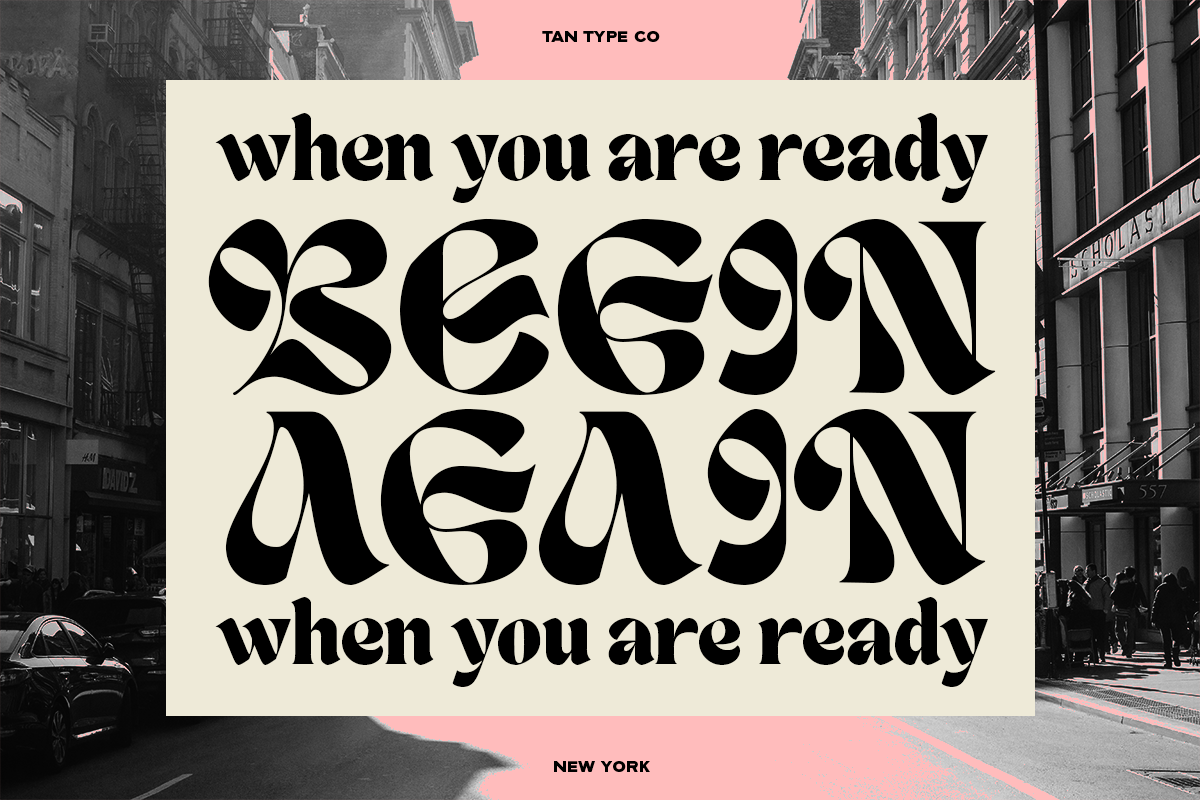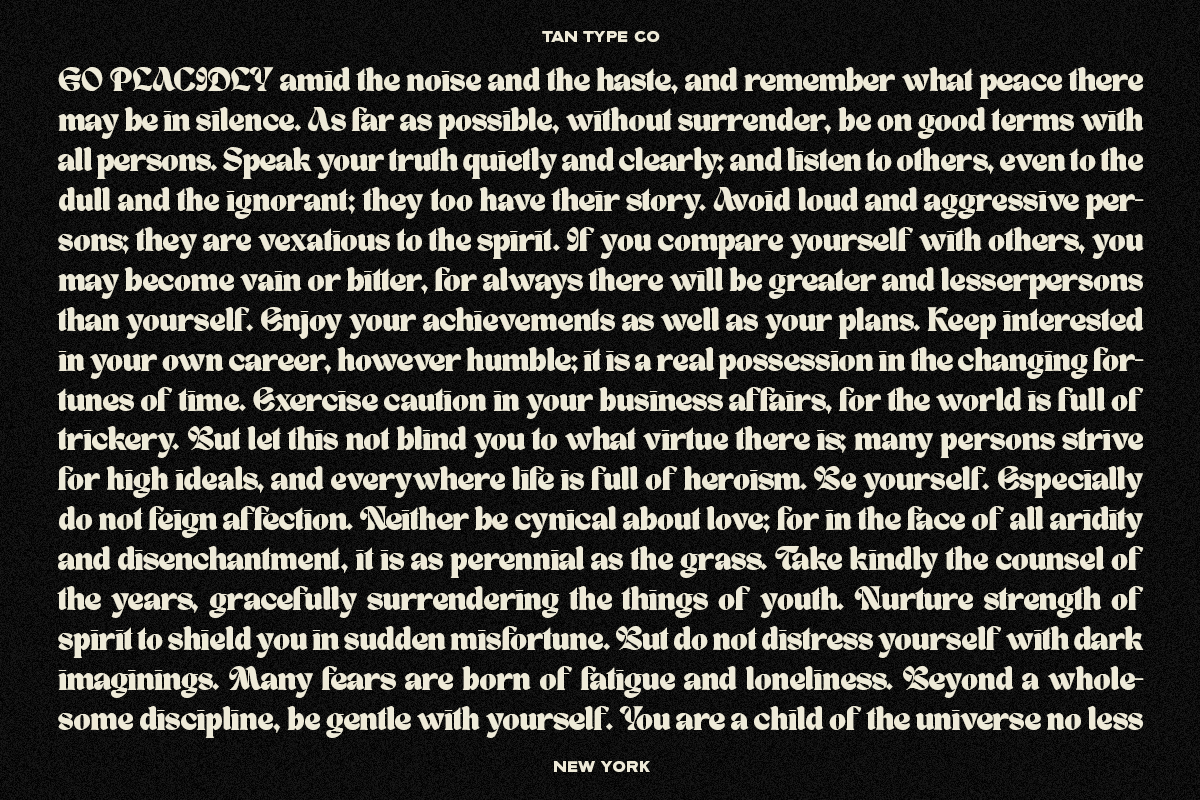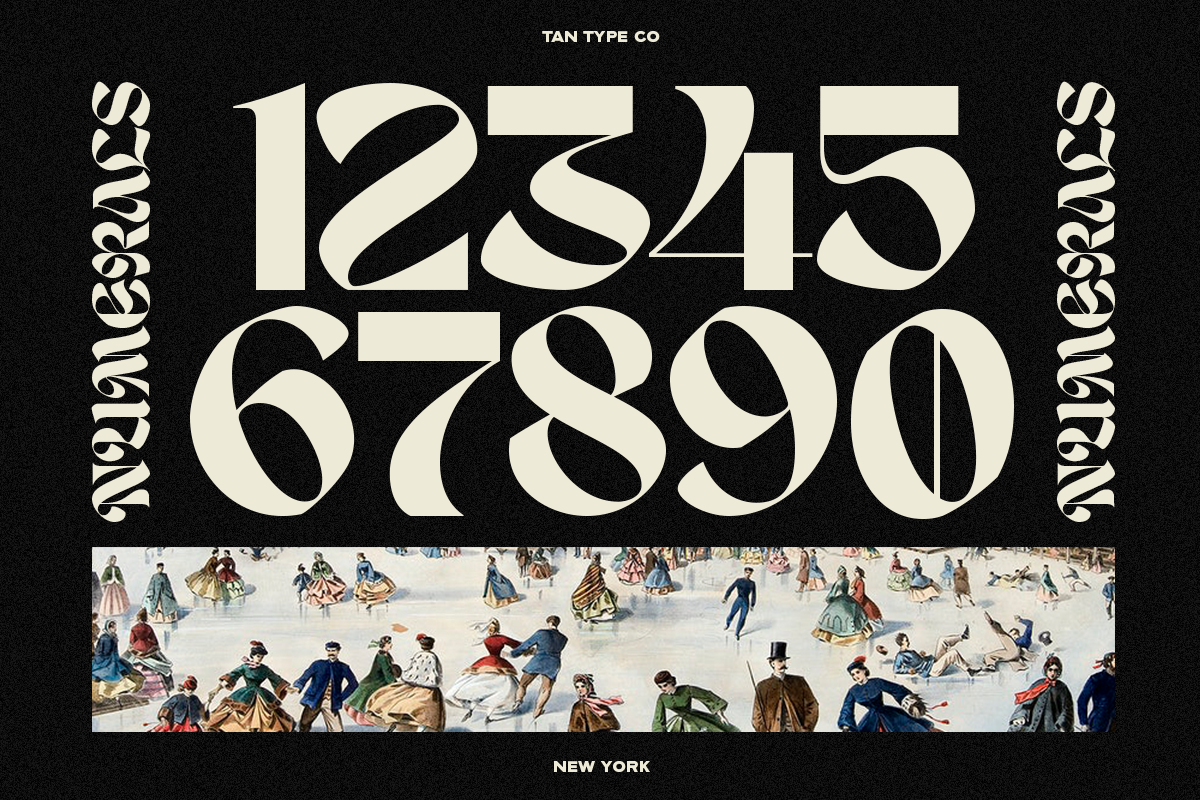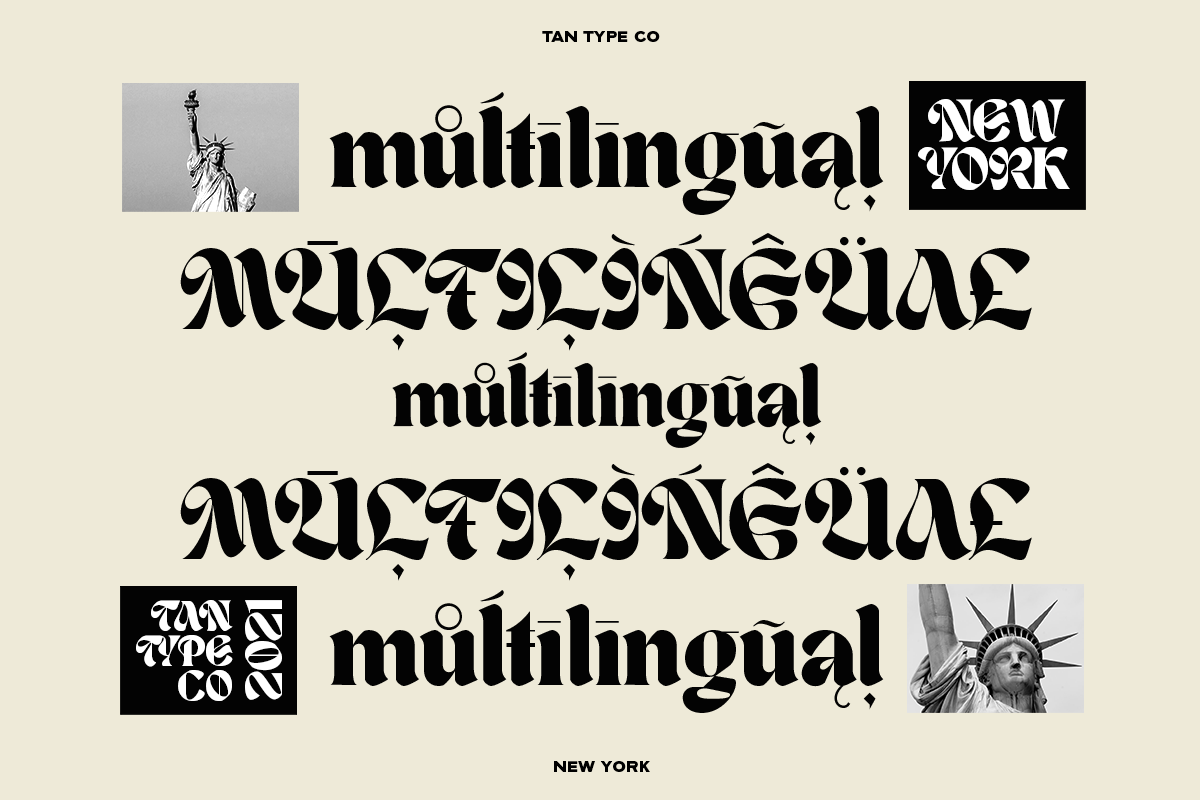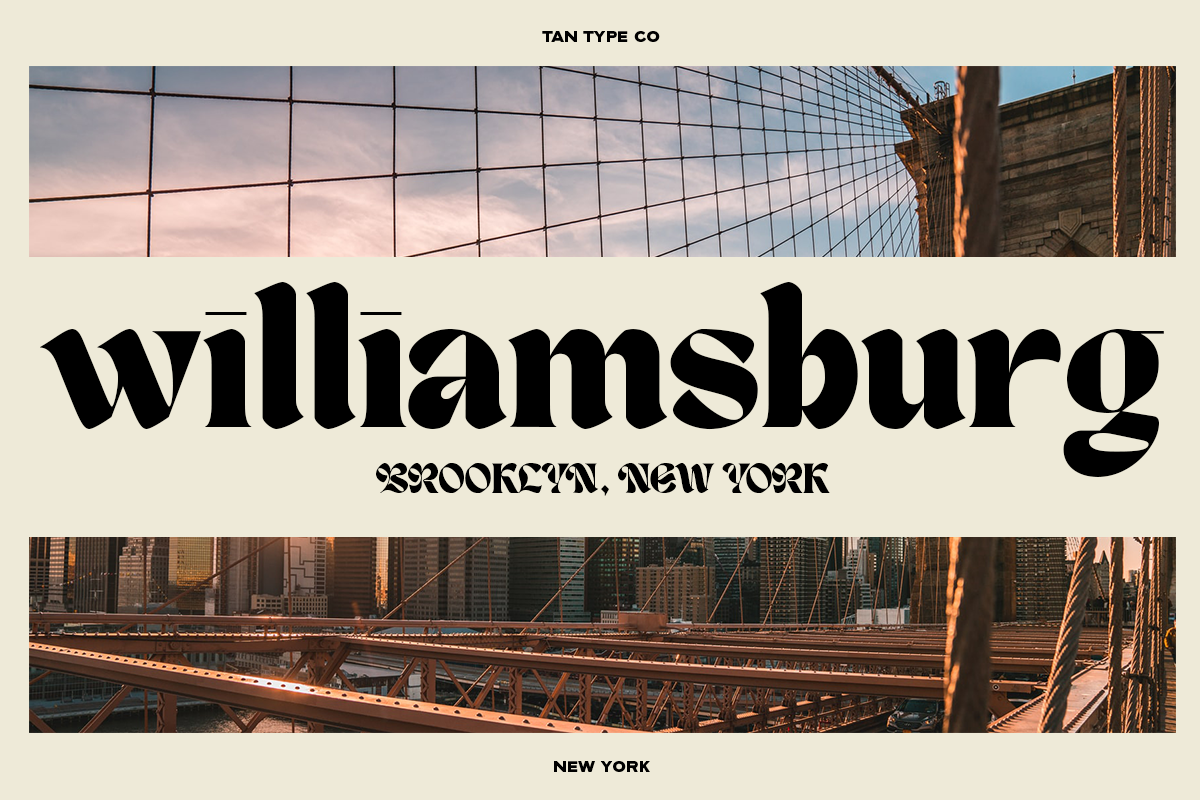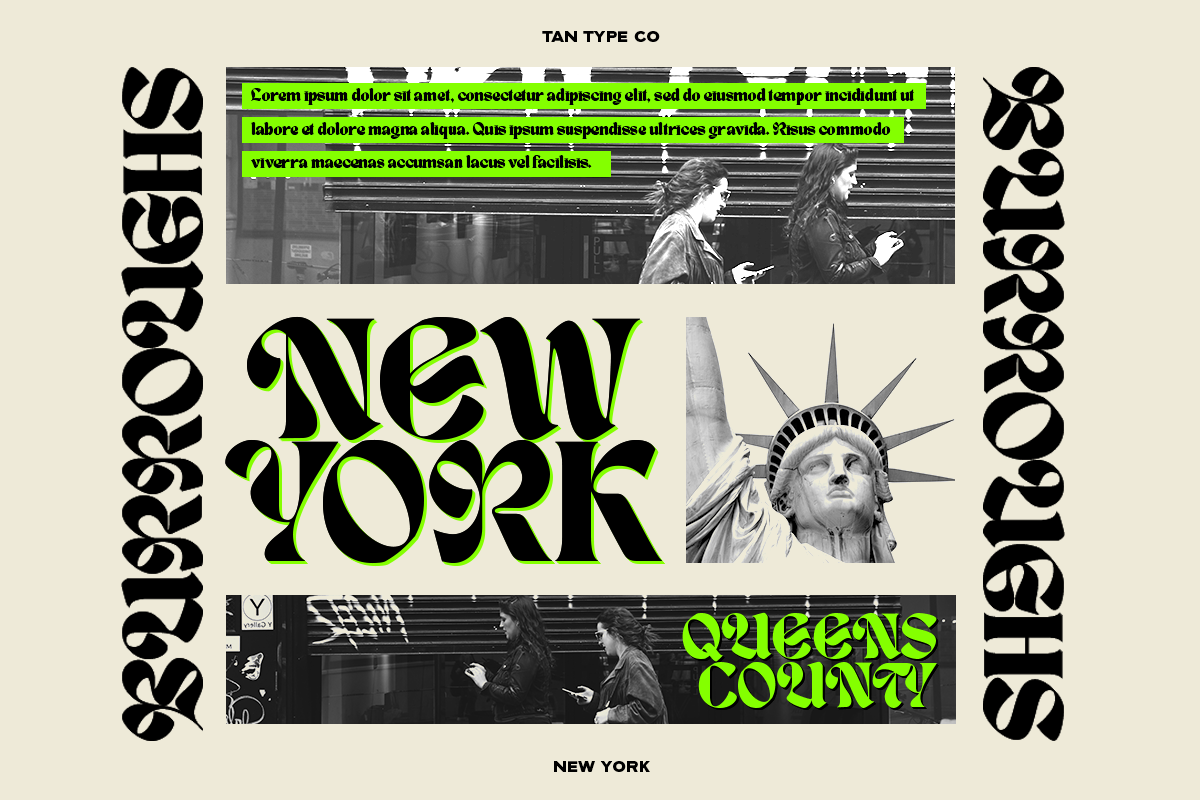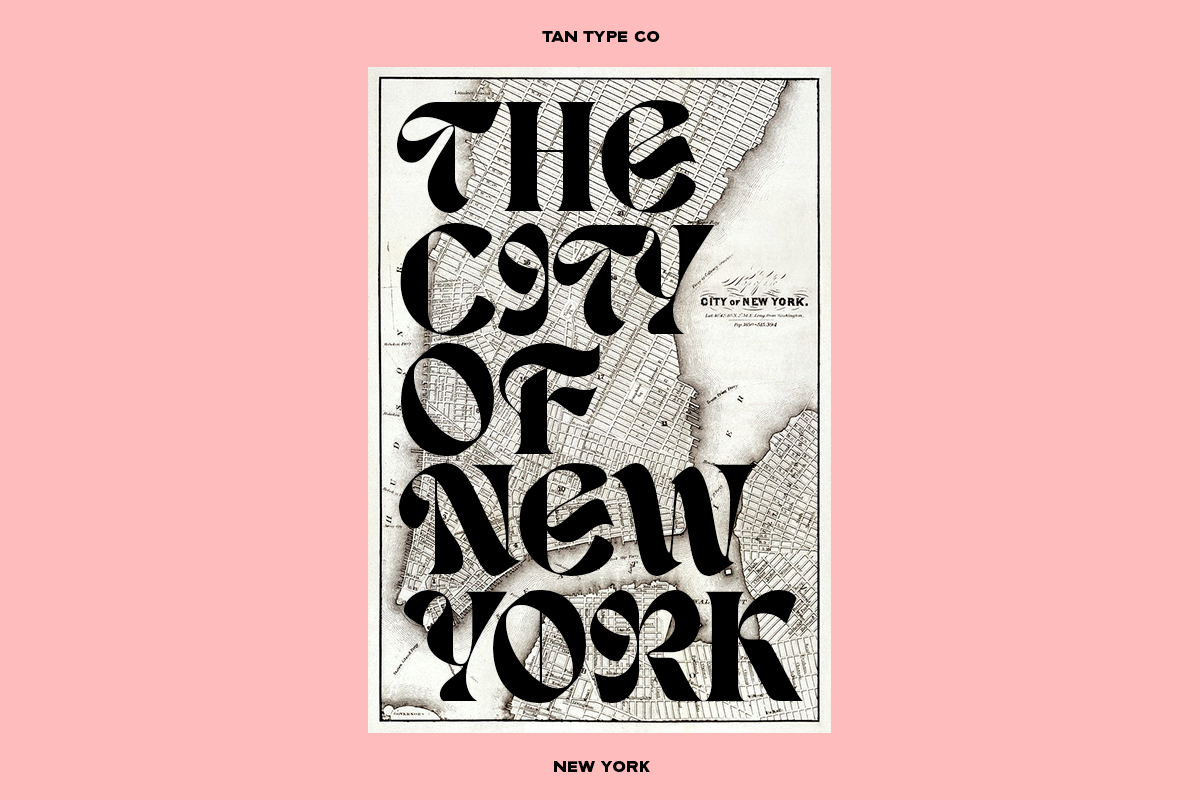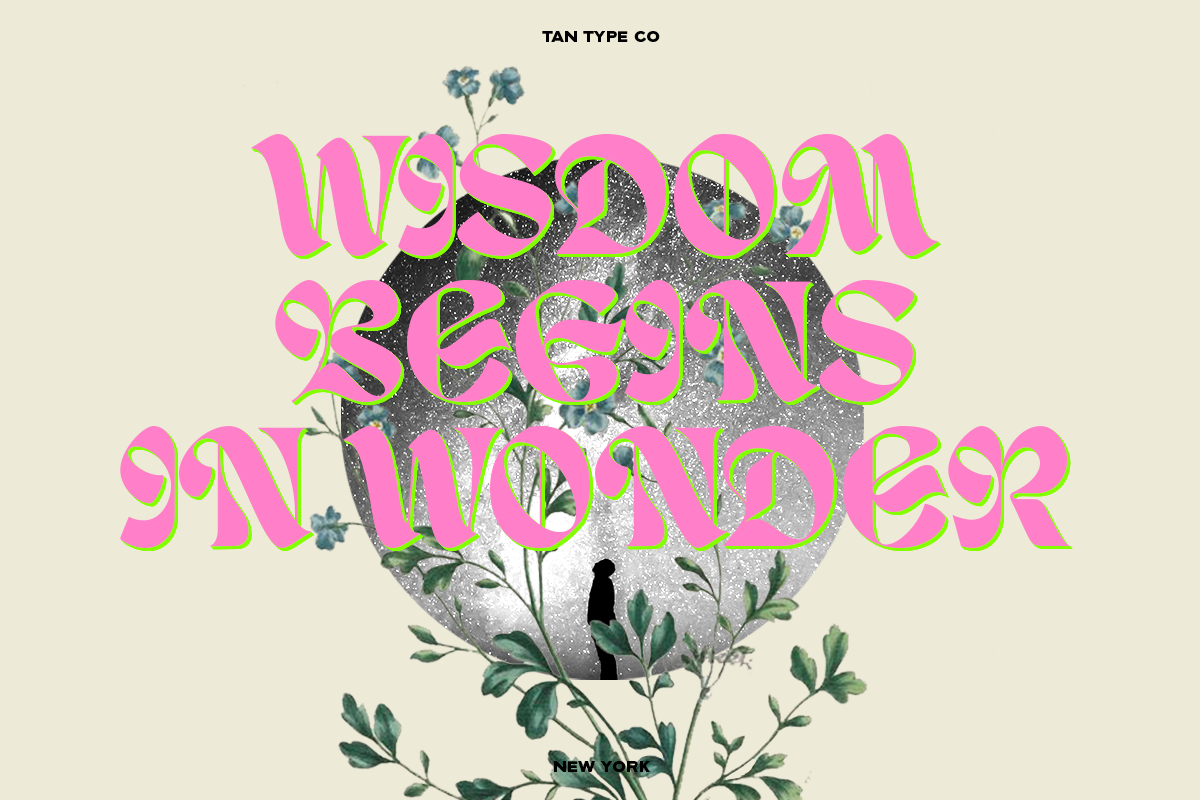
TAN - NEW YORK
TAN - NEW YORK is a blackletter inspired display typeface. It's bold and playful with retro twist. Using all capitals will give you a highly stylized text, while combining capitals with lowercase will give you a highly legible text.